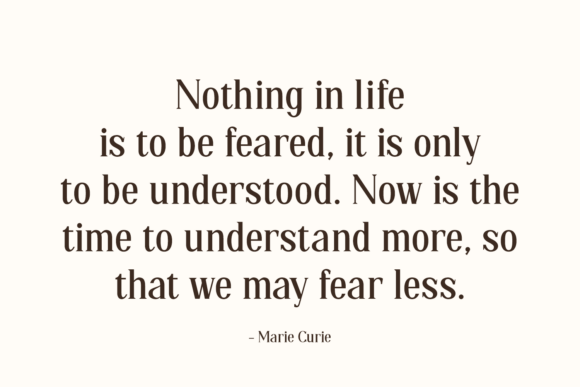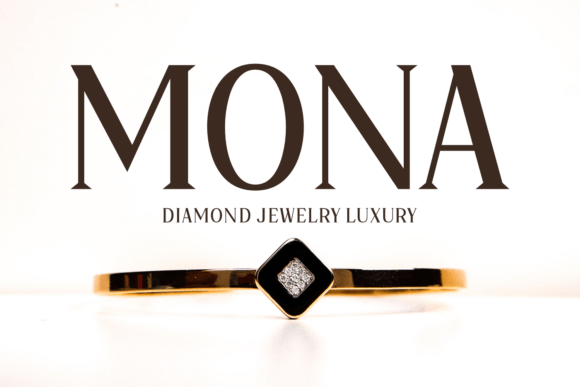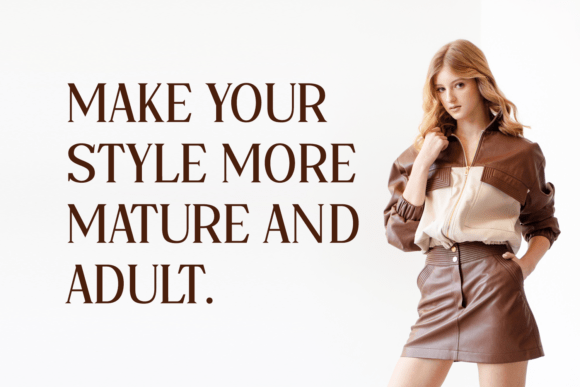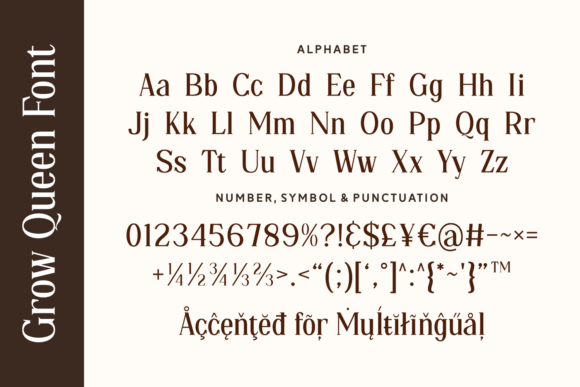
Introducing Grow Queen: The Modern Serif Font for Elegant Designs
In the world of typography, fonts play a crucial role in conveying the tone and personality of a brand or design. For designers and crafters looking for a font that exudes sophistication and elegance, Grow Queen is an excellent choice. This modern serif font strikes the perfect balance between refinement and strength, making it ideal for a wide range of applications, from branding and editorial layouts to packaging and invitations.
The Characteristics of Grow Queen
Grow Queen boasts clean lines, refined curves, and subtle details that give it a timeless charm with a contemporary twist. Its serif design adds a touch of classic elegance, while its modern sensibilities ensure it remains fresh and relevant. The font’s balanced design makes it highly versatile, suitable for both luxury projects that require a high level of sophistication and creative endeavors that demand a unique flair.
One of the standout features of Grow Queen is its versatility. This font can be used across various design applications, including:
- Branding: Establish a strong and elegant brand identity with Grow Queen. Its sophisticated look makes it perfect for logos, business cards, and brand guidelines.
- Editorial Layouts: Enhance the readability and aesthetic appeal of magazines, newspapers, and digital publications with Grow Queen’s clean and classic design.
- Packaging: Add a touch of luxury to product packaging with Grow Queen. Its elegant appearance can elevate the perceived value of any product.
- Invitations: Create stunning invitations for weddings, events, and parties that convey sophistication and style.
Why Choose Grow Queen?
There are several reasons why Grow Queen stands out as a font choice:
- Timeless Elegance: Grow Queen’s design is inspired by classic serif fonts but with a modern twist, ensuring it remains relevant for years to come.
- High Readability: The font’s clear and balanced design ensures high readability, making it suitable for body text and headings.
- Customization: Grow Queen can be easily customized to fit the specific needs of your project, from adjusting weights to fine-tuning spacing.
- Support for Multiple Languages: Grow Queen supports a wide range of languages, making it a great choice for international brands and projects.
Tips for Using Grow Queen Effectively
To get the most out of Grow Queen, consider the following tips:
- Pair with Complementary Fonts: For maximum impact, pair Grow Queen with fonts that complement its elegant and modern style. Sans-serif fonts can create a striking contrast, while other serif fonts can add depth.
- Experiment with Weights: Grow Queen comes in various weights. Experiment with different weights to create visual hierarchy and add emphasis to key elements of your design.
- Pay Attention to Spacing: Adjust the spacing between letters and lines to ensure optimal readability and aesthetic appeal.
Grow Queen is a versatile and elegant modern serif font that can elevate any design project. Its unique blend of classic sophistication and contemporary style makes it an excellent choice for designers and crafters looking to add a touch of luxury and refinement to their work. Whether you’re working on branding, editorial layouts, packaging, or invitations, Grow Queen is sure to make a lasting impression.
Get Ready to Grow Your Designs with Grow Queen